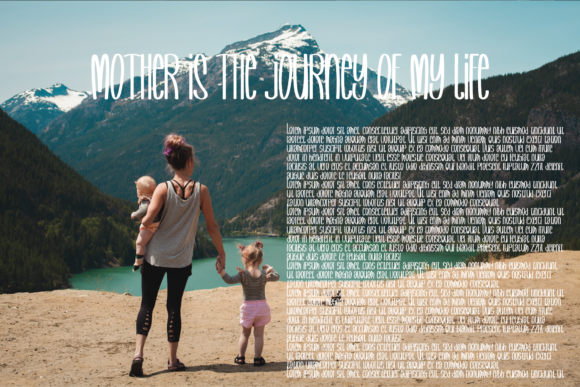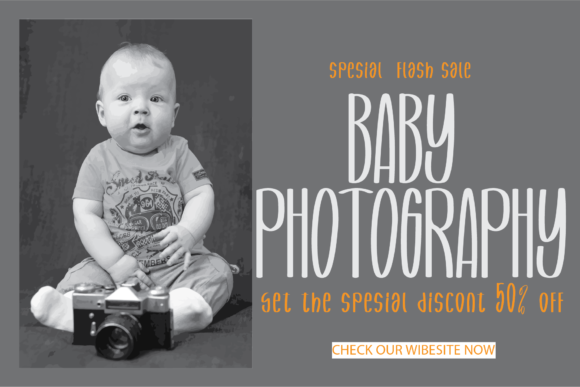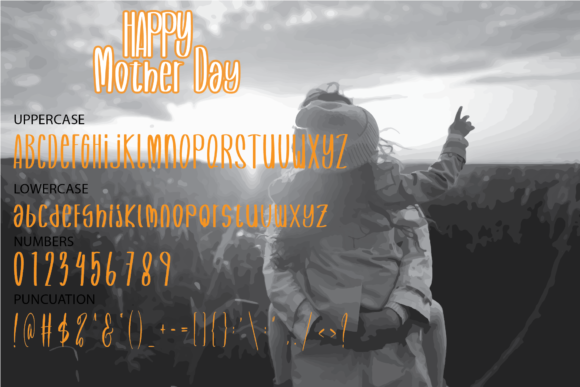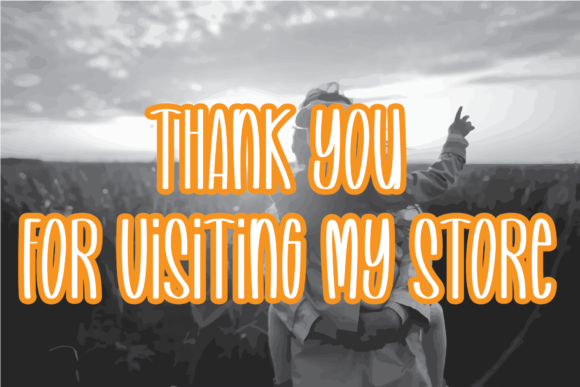
Introducing Happy Mother Day Font: A Cute and Versatile Handwritten Font
Are you looking for a font that can add a personal touch to your designs? Look no further than the Happy Mother Day Font! This adorable, tall, and simple handwritten font is perfect for a variety of casual or informal designs. In this article, we’ll explore the features and benefits of this beautiful font, and show you how to make the most of its endless variations.
What is Happy Mother Day Font?
Happy Mother Day Font is a clean and adaptable handwritten font that is perfect for designers and crafters who want to add a touch of warmth and personality to their work. This font is characterized by its tall and slender letters, which give it a elegant and refined look. The font is also highly legible, making it suitable for use in a wide range of applications, from greeting cards and invitations to posters and social media graphics.
Features of Happy Mother Day Font
So, what makes Happy Mother Day Font so special? Here are just a few of its key features:
- Cute and playful design: Happy Mother Day Font has a fun and playful design that is sure to capture the attention of your audience.
- Tall and slender letters: The font’s tall and slender letters give it a elegant and refined look that is perfect for a variety of designs.
- Clean and adaptable: Happy Mother Day Font is a clean and adaptable font that can be used in a wide range of applications, from casual to formal designs.
- Highly legible: The font is highly legible, making it easy to read and understand.
Benefits of Using Happy Mother Day Font
So, why should you choose Happy Mother Day Font for your next design project? Here are just a few benefits of using this beautiful font:
- Adds a personal touch: Happy Mother Day Font adds a personal touch to your designs, making them more relatable and engaging.
- Perfect for casual designs: This font is perfect for casual designs, such as greeting cards, invitations, and social media graphics.
- Endless variations: With Happy Mother Day Font, you can create endless variations of your designs, making it perfect for crafters and designers who like to experiment.
Design Ideas Using Happy Mother Day Font
Happy Mother Day Font is a versatile font that can be used in a wide range of designs. Here are just a few ideas to get you started:
- Greeting cards: Use Happy Mother Day Font to create beautiful and personalized greeting cards for special occasions.
- Invitations: Create custom invitations for parties, weddings, and other events using this font.
- Social media graphics: Use Happy Mother Day Font to create eye-catching social media graphics that will grab the attention of your followers.
- Posters: Create posters for events, promotions, or products using this font.
In conclusion, Happy Mother Day Font is a beautiful and versatile handwritten font that is perfect for designers and crafters who want to add a personal touch to their work. With its cute and playful design, tall and slender letters, and clean and adaptable style, this font is sure to become a favorite in your font collection. So why wait? Download Happy Mother Day Font today and start creating stunning designs that will capture the attention of your audience!